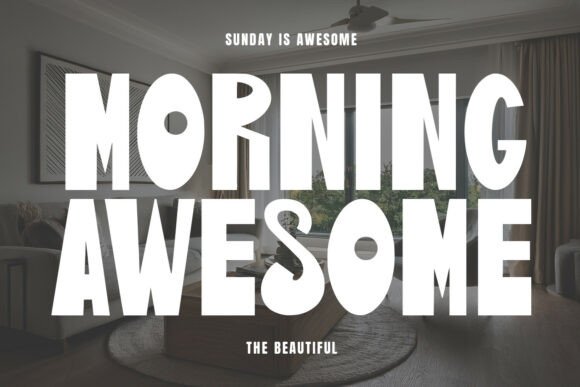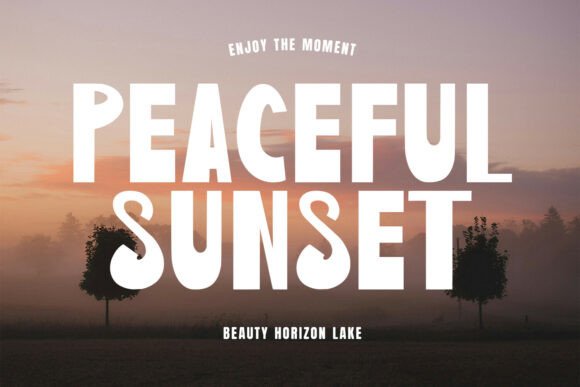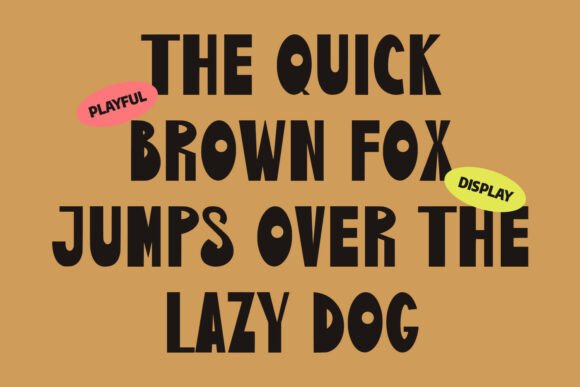
Introduction to Rathe Oklum Font
Make a Bold Statement with Rathe Oklum.
Elevate your design projects with Rathe Oklum, a powerhouse display font designed to command attention This typeface seamlessly blends heavy, architectural structures with quirky, experimental shapes, making it the perfect choice for designers looking to break the mold.
Why Choose Rathe Oklum Font?
Rathe Oklum Font offers exceptional quality and versatility, making it a valuable addition to your design toolkit. Whether you’re creating for personal projects or commercial use, Rathe Oklum Font delivers professional results.